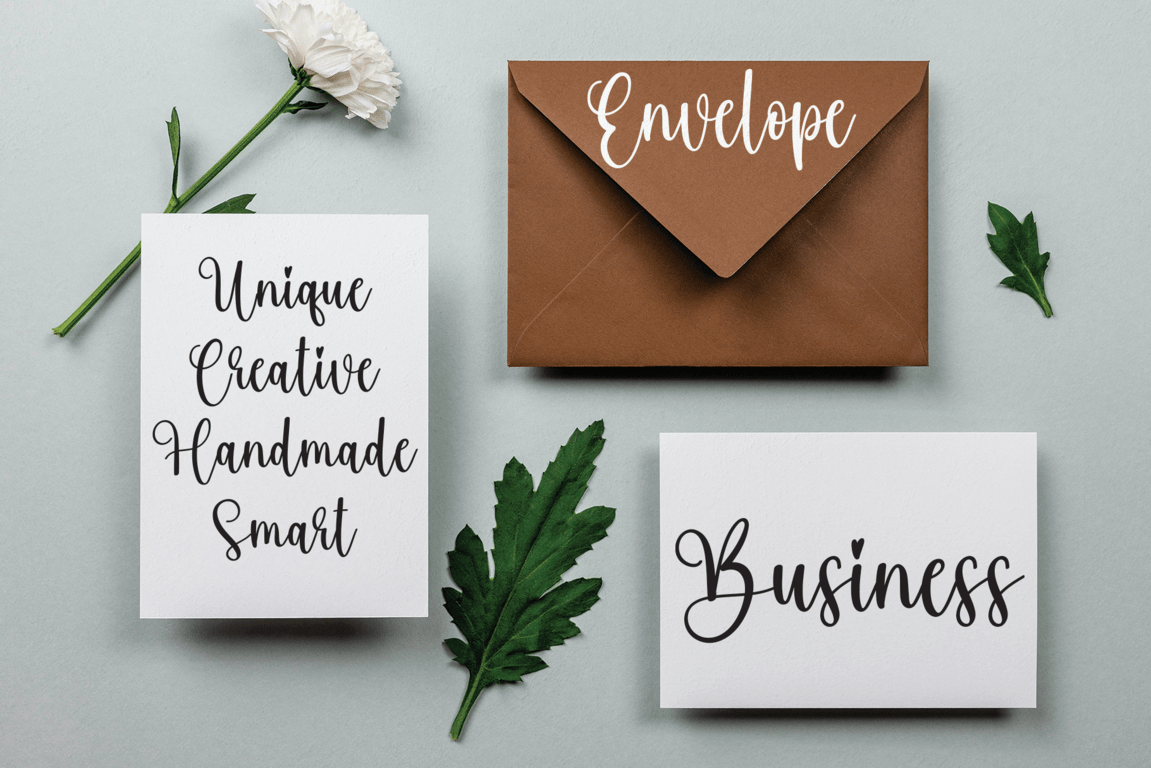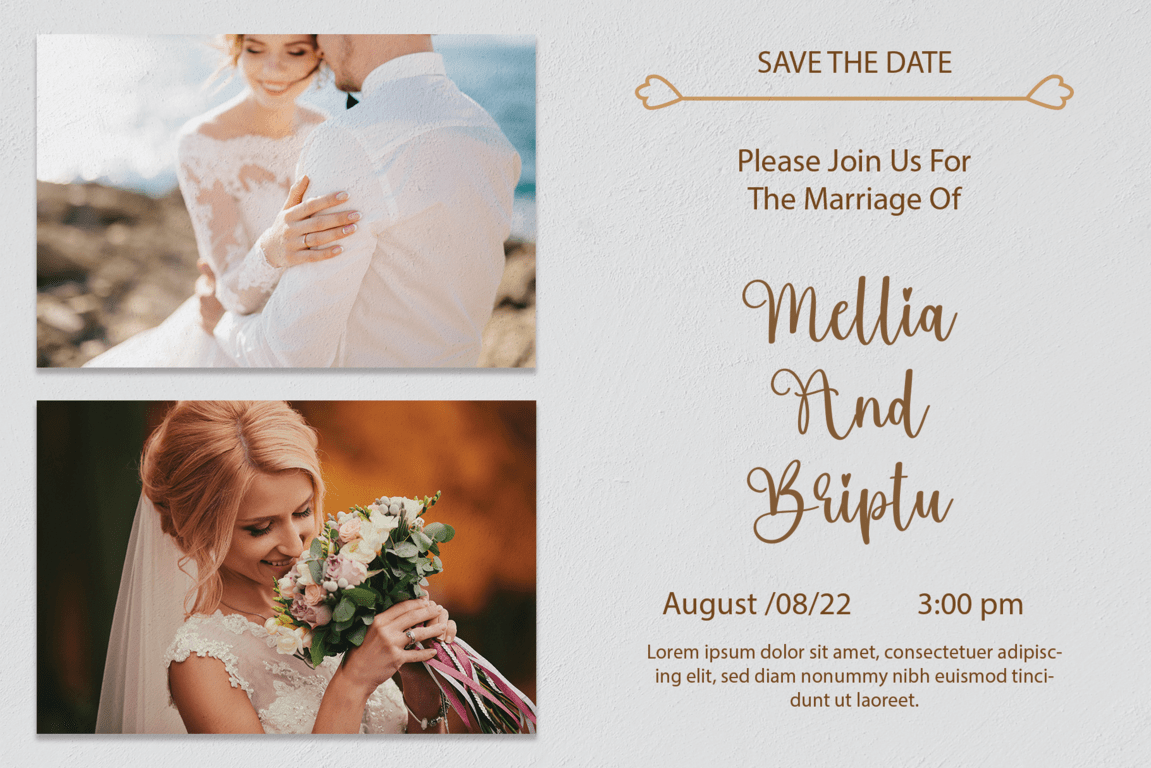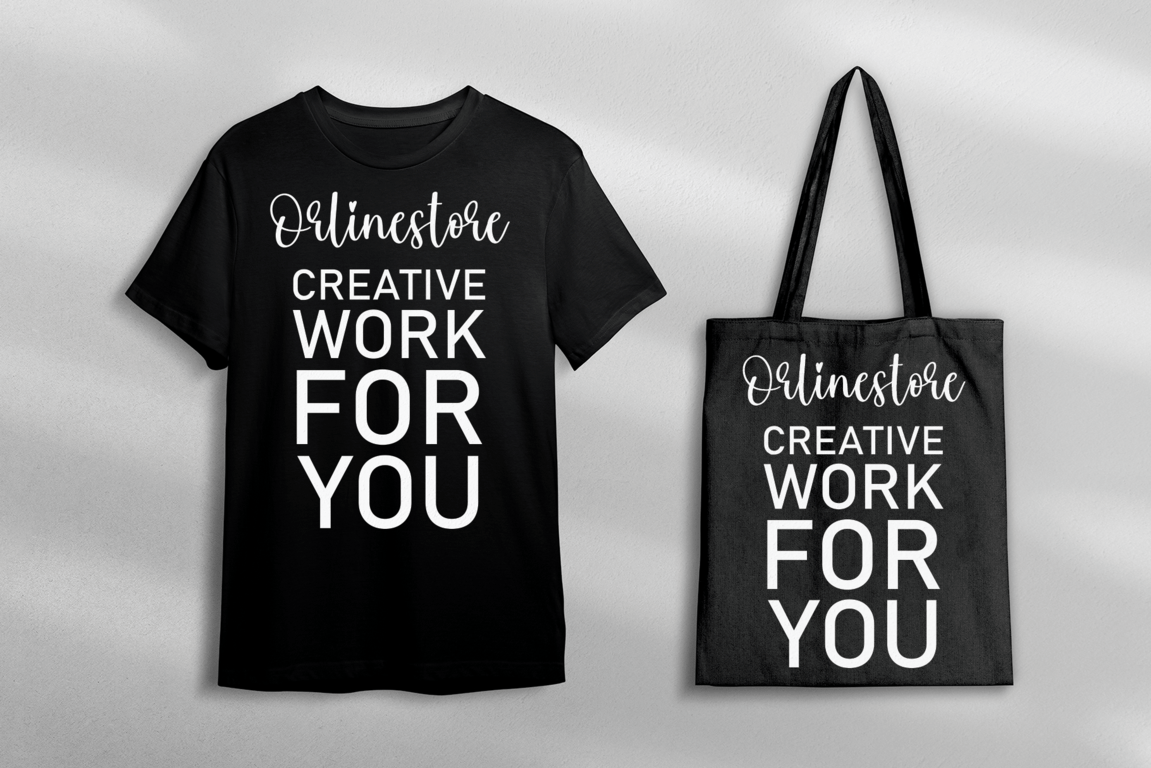
Bakery Font
Bakery Script Font is a fun and friendly handwritten font. Whether you’re using it for crafts, digital design, presentations, or creating greeting cards, this font has the potential to become your favorite font, whatever the occasion!
the latest style letters are perfect for wall displays, wedding invitations, social media post logos, advertisements, product packaging, product designs, labels, photography, watermarks, invitations, stationery, and any project that requires taste handwriting.